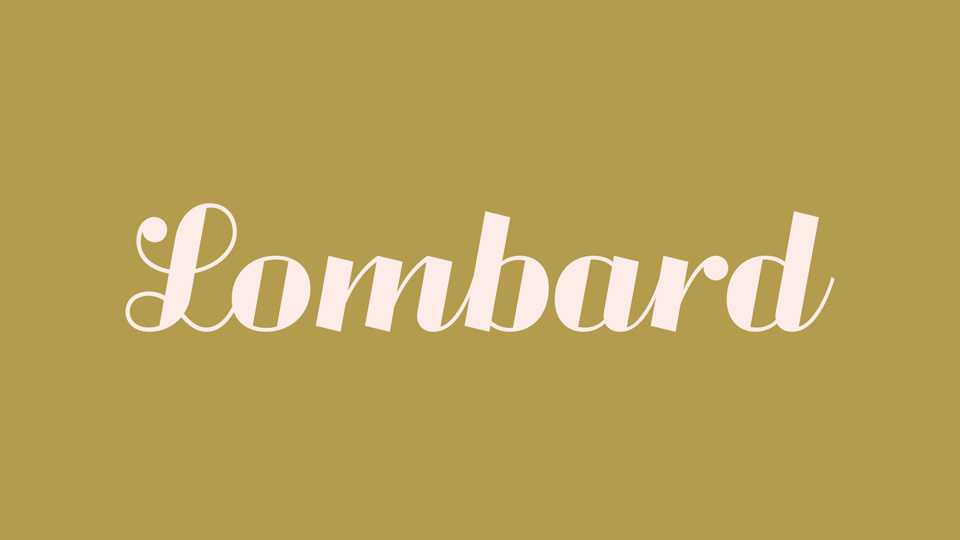
Download Lombard font, a combination of an expressive script inspired by traditional Warsaw’s neon lettering and block letters typical for local craftsmen signage.
Designer: Ania Wieluńska